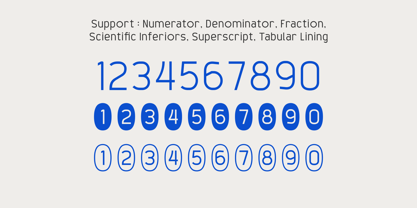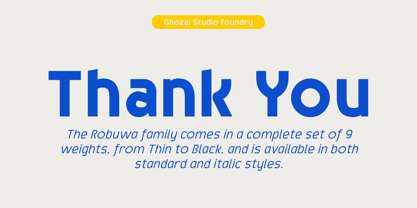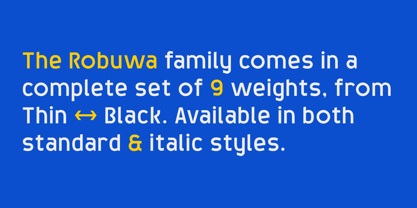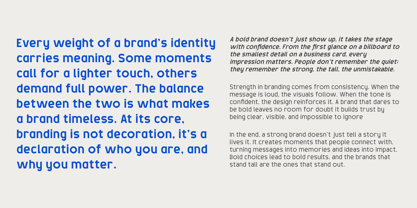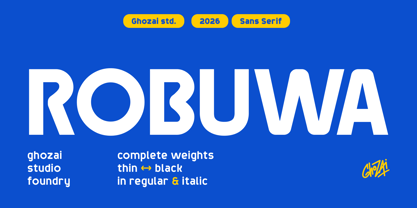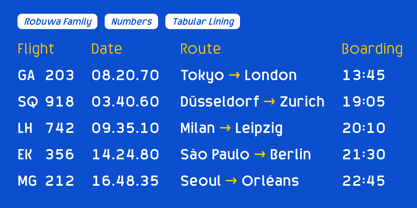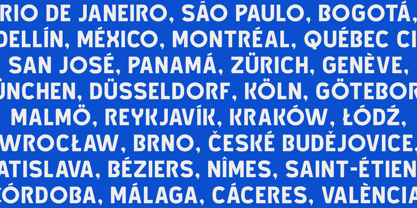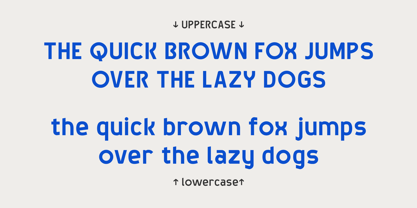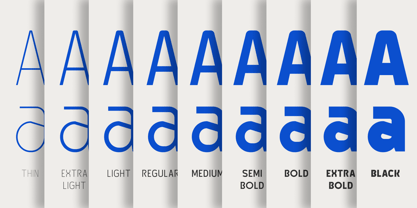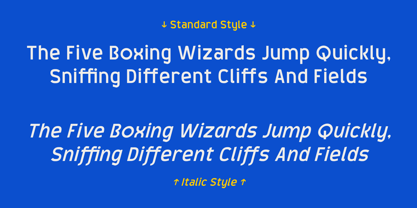
Robuwa
La familia tipográfica Robuwa fue diseñada por Manzur Ghozaali y publicada por Ghozai Studio. Robuwa contiene 18 estilos y opciones de paquete familiar. Más información sobre esta familia
Robuwa is a grotesk-sans font family that offers a selection of 9 distinct weights, ranging from Thin to Black, along with both regular and italic styles, for a total of 18 fonts. This extensive range of weights is enhanced by a rich set of symbols, OpenType features, and Tabular Lining numbers, providing exceptional versatility for various languages and design needs. Its modern, clean, and bold aesthetic makes it perfect for a wide array of applications, including display, branding, signage, festival posters, sports, and more. Whether crafting impactful headlines, unique logos, or clear signage, Robuwa seamlessly combines style with functionality. Its adaptability to different design styles positions it as an excellent choice for any project requiring a bold and contemporary flair.